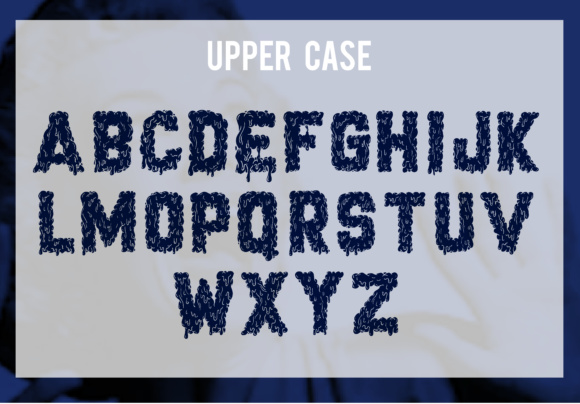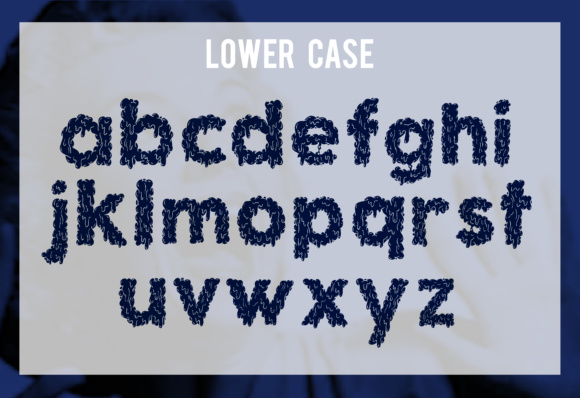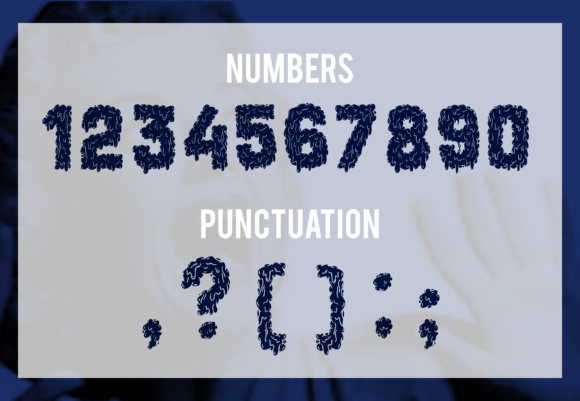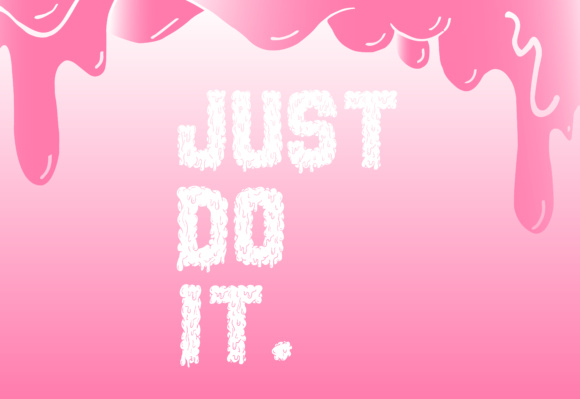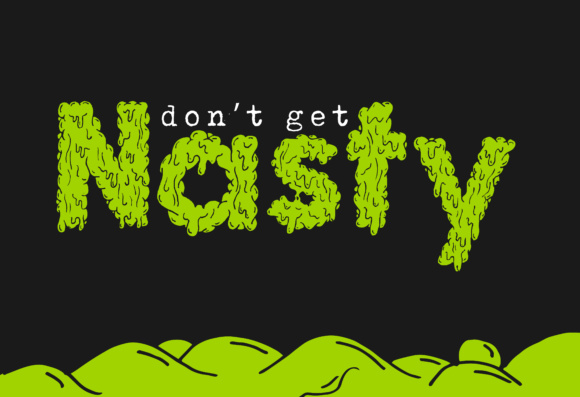
Introduction to Monstrocity Black Font
Have you ever been working on a creative project, pouring your heart and soul into it, only to realize that the perfect design element is just out of reach? That’s where the Monstrocity Black Font comes in – a versatile and easy-to-use decorative font that can breathe new life into your designs.
Whether you’re looking to add a touch of whimsy or a dash of grunge to your work, Monstrocity Black Font is the perfect resource. Its ornamental nature makes it shine in large formats, making it an ideal choice for headlines and titles. And the best part? It’s free to download, allowing you to access high-quality design elements without breaking the bank.
With its transparent background and endless design possibilities, the Monstrocity Black Font is a valuable asset for designers of all levels, from beginners to seasoned pros. So why settle for a bland design when you can unleash your creativity with this incredible font?
Key Features of Monstrocity Black Font
- Includes a range of characters and glyphs, including uppercase and lowercase letters, numbers, and punctuation marks.
- Designed with a bold, edgy aesthetic, making it perfect for modern and futuristic designs.
Honest Review: Monstrocity Black Font
I recently stumbled upon the Monstrocity Black Font while searching for a design resource for my latest creative project. I was impressed by the high quality of this font, and I was thrilled to discover that it’s available for free download!
- What works well: ✨ The Monstrocity Black Font has a unique and edgy design that’s perfect for projects that require a bold and dramatic look. The font is also highly customizable, making it easy to use in a variety of creative contexts.
- What works well: ✨ The font has a transparent background, making it easy to layer over images or other design elements.
One potential limitation of the Monstrocity Black Font is that it may not be suitable for projects that require a more subtle or elegant look. Additionally, some users may find the font to be too aggressive or overwhelming.
Overall, I’m impressed with the Monstrocity Black Font, and I would recommend it to designers who are looking for a high-quality, free design resource for their creative projects.
How to Use Monstrocity Black Font
Monstrocity Black Font is a high-quality design resource ideal for various creative projects. This font offers a unique and bold aesthetic, perfect for making a statement in your design work.
Getting the Most Out of Monstrocity Black Font
To get the most out of Monstrocity Black Font, use it on a transparent background to make the text stand out. Experiment with different font sizes and styles to create a visually appealing design.
Monstrocity Black Font is commonly used for:
- Headings and titles
- Logo designs